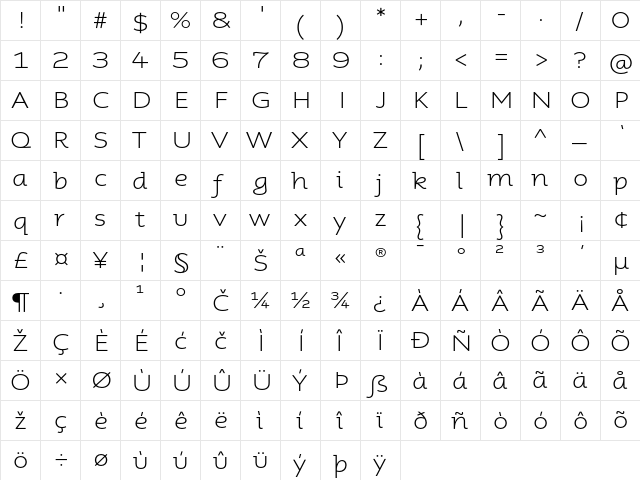
Aspect Light
Aspect Light Font Details
| Foundry | Jeremy Tankard, |
Design Context for Aspect Typeface
Aspect takes a measured approach to typography — its balanced proportions and neutral character make it a reliable workhorse for both digital and print work. The delicate stroke weight brings airiness and refinement to layouts.